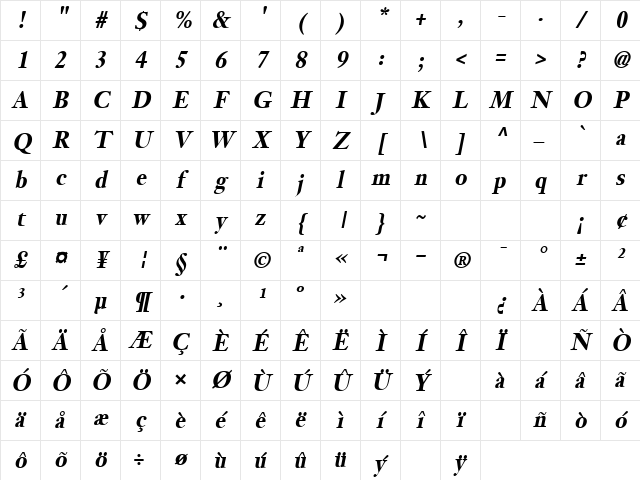
ObloquyCond Bold-Oblique Free Font
ObloquyCond Bold-Oblique
Style: Bold-Oblique
Design Context for ObloquyCond
ObloquyCond is a composed and adaptable typeface that performs quietly and consistently across a wide range of design contexts. The slanted form adds forward momentum and visual energy. Its bold stroke weight gives it real presence on the page. Its narrow stance lets it pack a punch even in space-constrained designs.
Pro Tip: Use ObloquyCond for emphasis, pull quotes, and subheadings where its slanted energy can add rhythm to the layout.